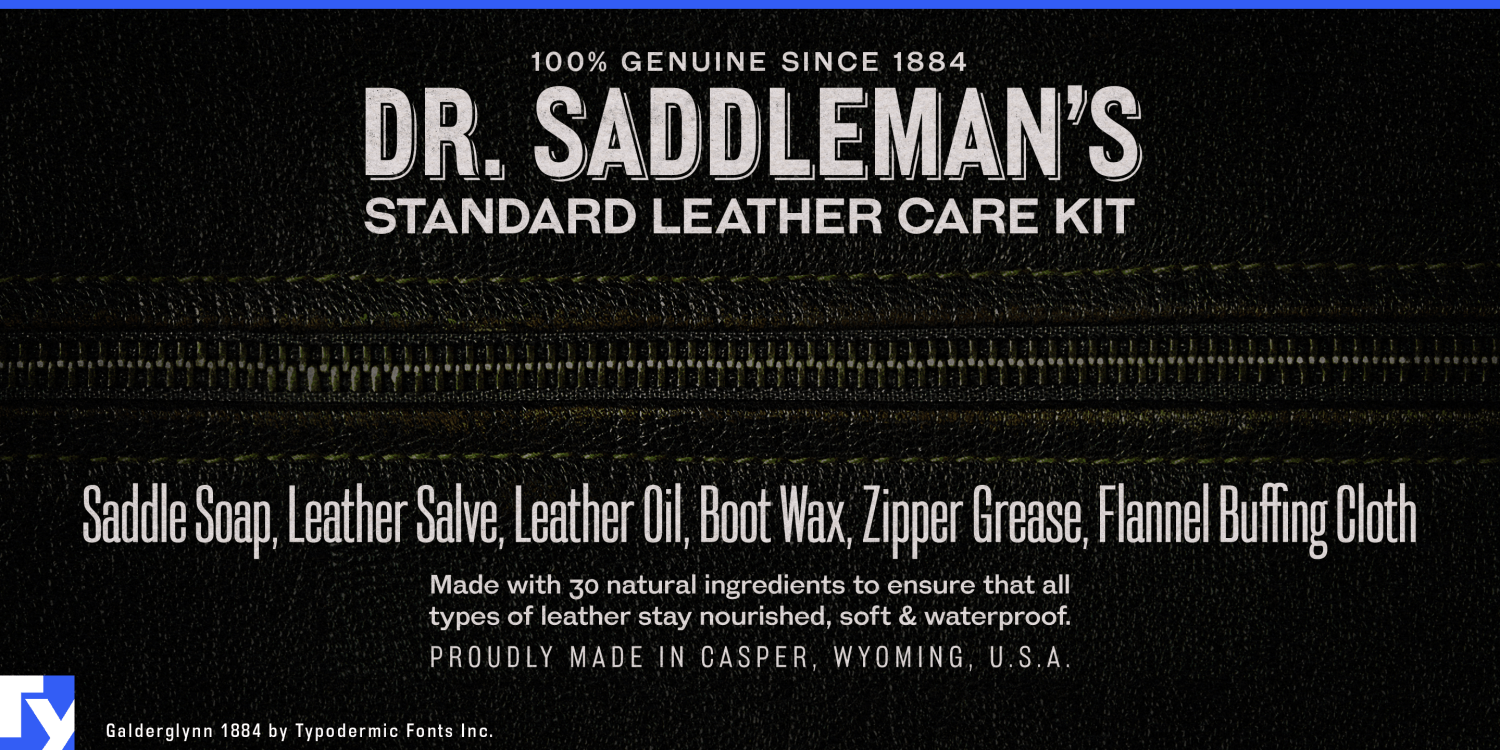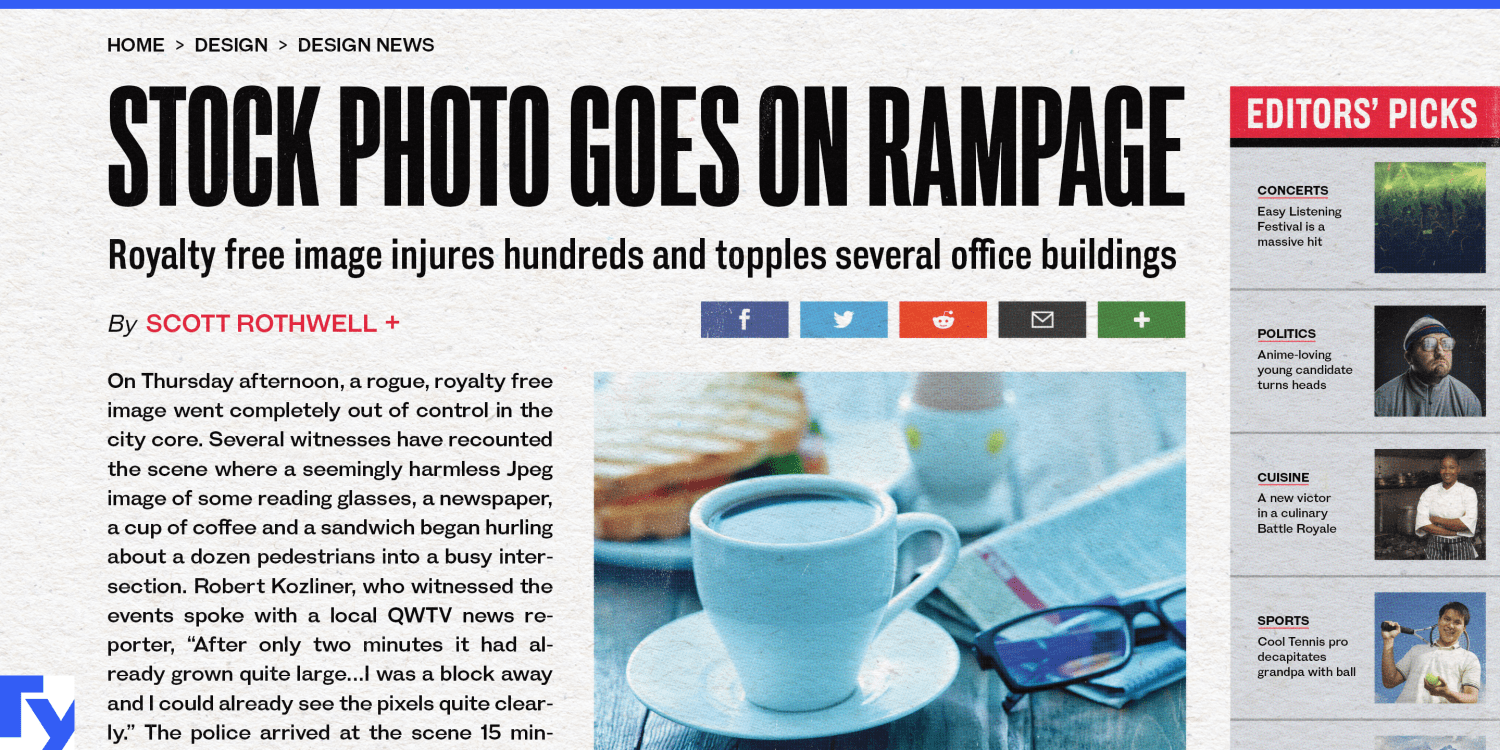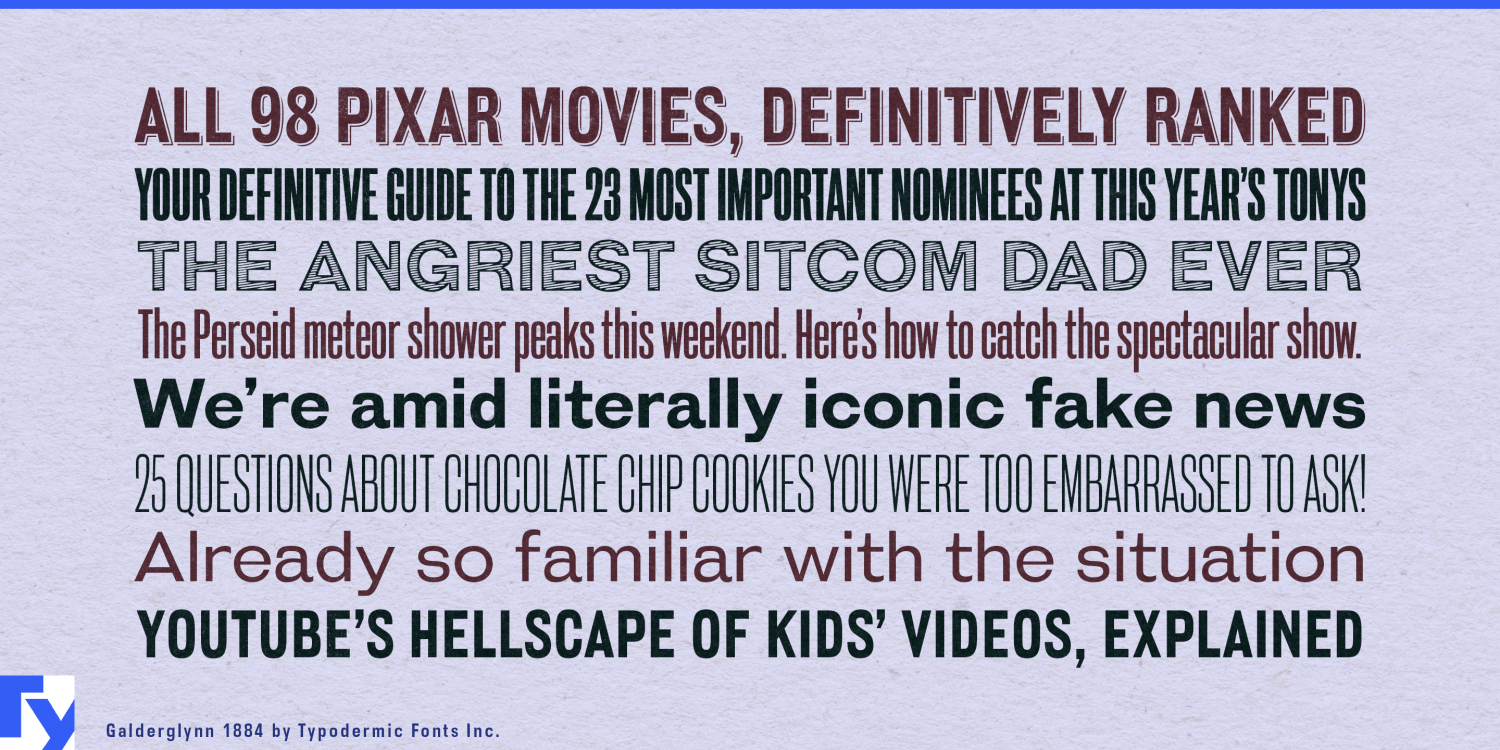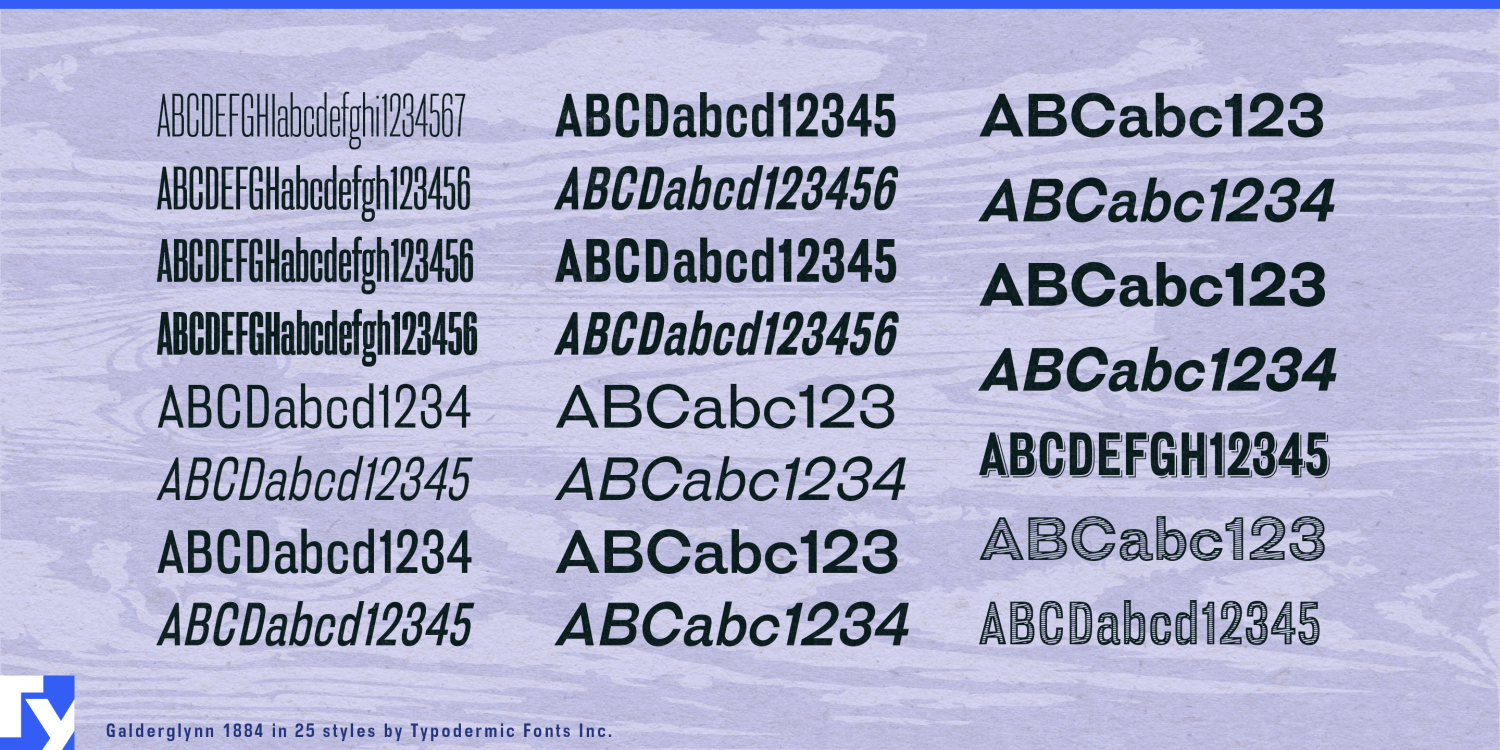
About Galderglynn 1884
Galderglynn 1884 transports your designs to the refined world of nineteenth-century typography. This font family evolves from the rustic Galderglynn Esquire, offering a polished yet authentically vintage aesthetic. Its condensed fonts echo the authoritative…